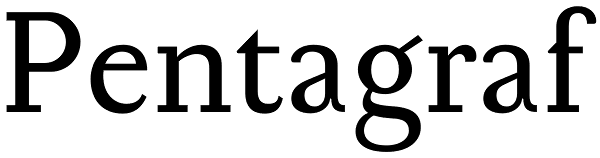
Pentagraf
For some time, a certain literary magazine in Brno used Pentagramme for text setting. I was sorry that its sharp and tall ascenders impaired the legibility of the otherwise interesting texts. The adjustment of Pentagramme gave rise to Pentagraf...